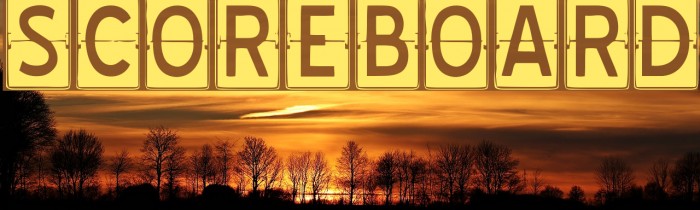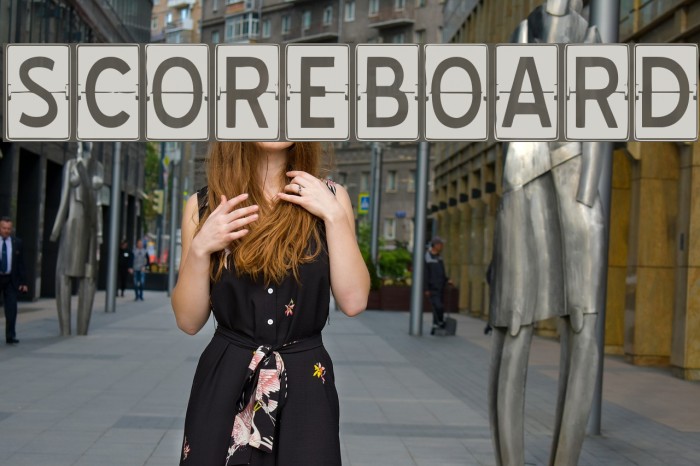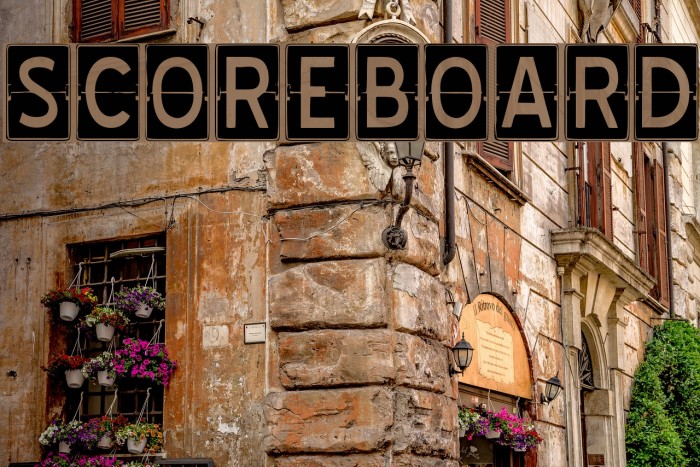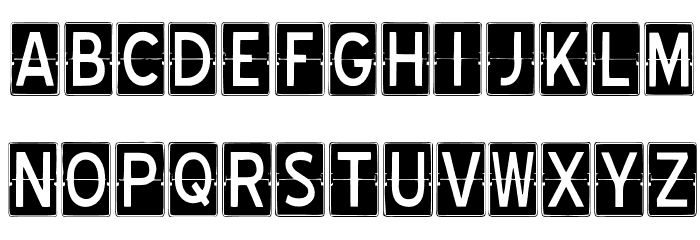
SCOREBOARD Font
SCOREBOARD Description
This font is inspired by the classic look of mechanical scoreboards, featuring bold, blocky letters and numbers set against a dark background. Each character is enclosed in a rectangular frame, reminiscent of the flipping panels used in traditional scoreboards. The design is clean and geometric, with a modern twist that makes it suitable for digital displays. The characters are evenly spaced, ensuring readability and a uniform appearance. The font includes a full set of uppercase and lowercase letters, numbers, and a selection of special characters, all maintaining the distinctive scoreboard style.
| Use Case | Headlines, Logos, Digital Displays |
| Proposed Projects | Ideal for sports-related designs, digital displays, retro-themed projects, and any application requiring a bold, attention-grabbing typeface. |